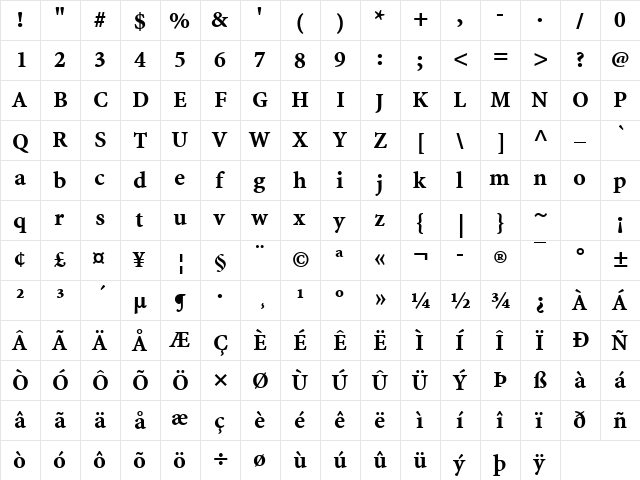
Minion Web Bold
| Designer | Robert Slimbach |
Design Context for Minion Web Typeface
Minion Web is a composed and adaptable typeface that performs quietly and consistently across a wide range of design contexts. The heavy weight commands attention and anchors typographic hierarchies.